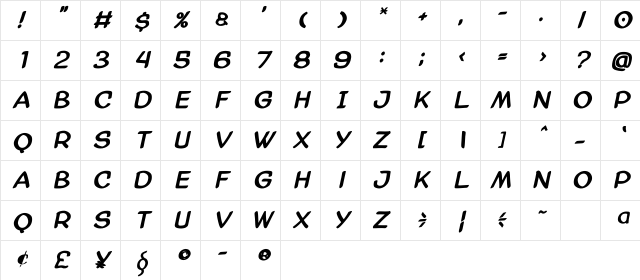
AmazGoDaBold is a composed and adaptable typeface that performs quietly and consistently across a wide range of design contexts. Its bold stroke weight gives it real presence on the page.